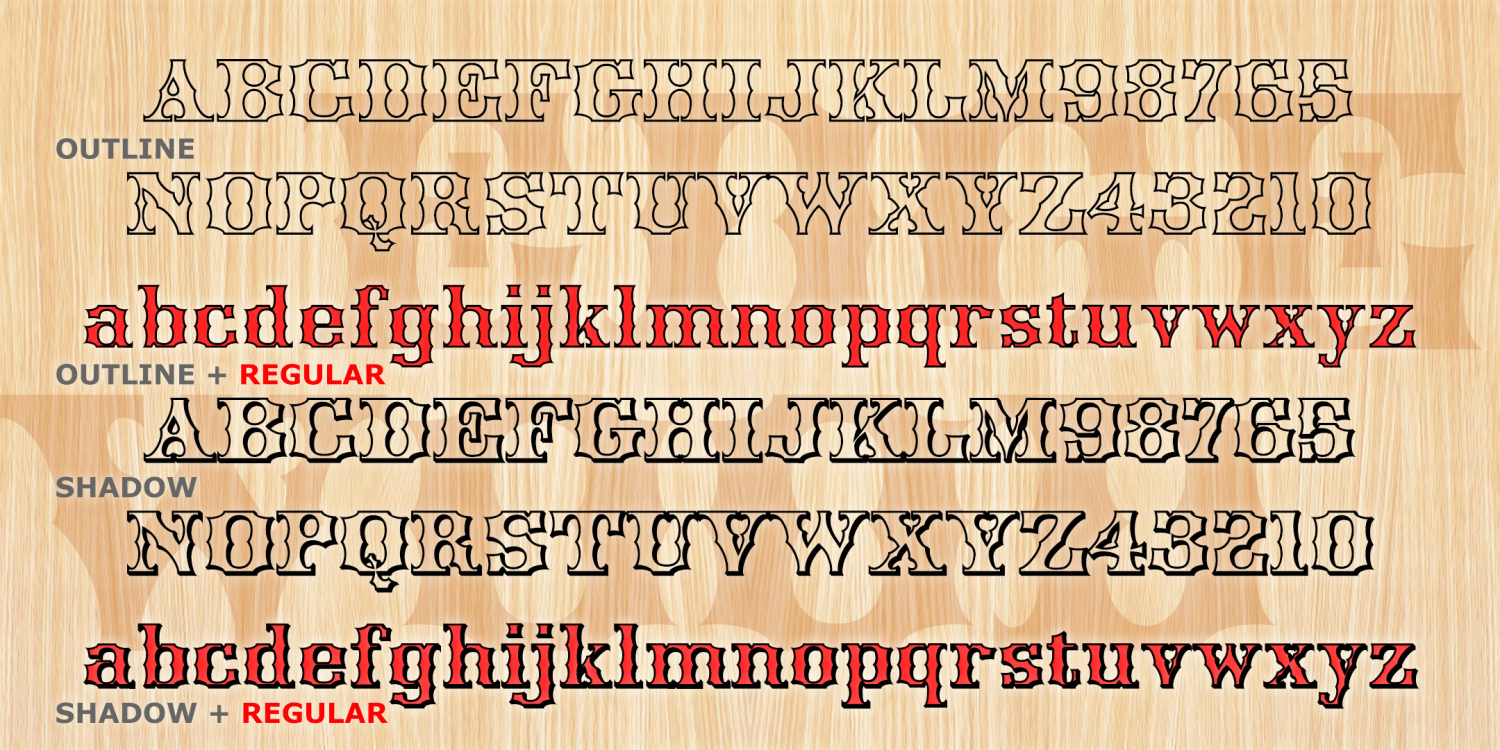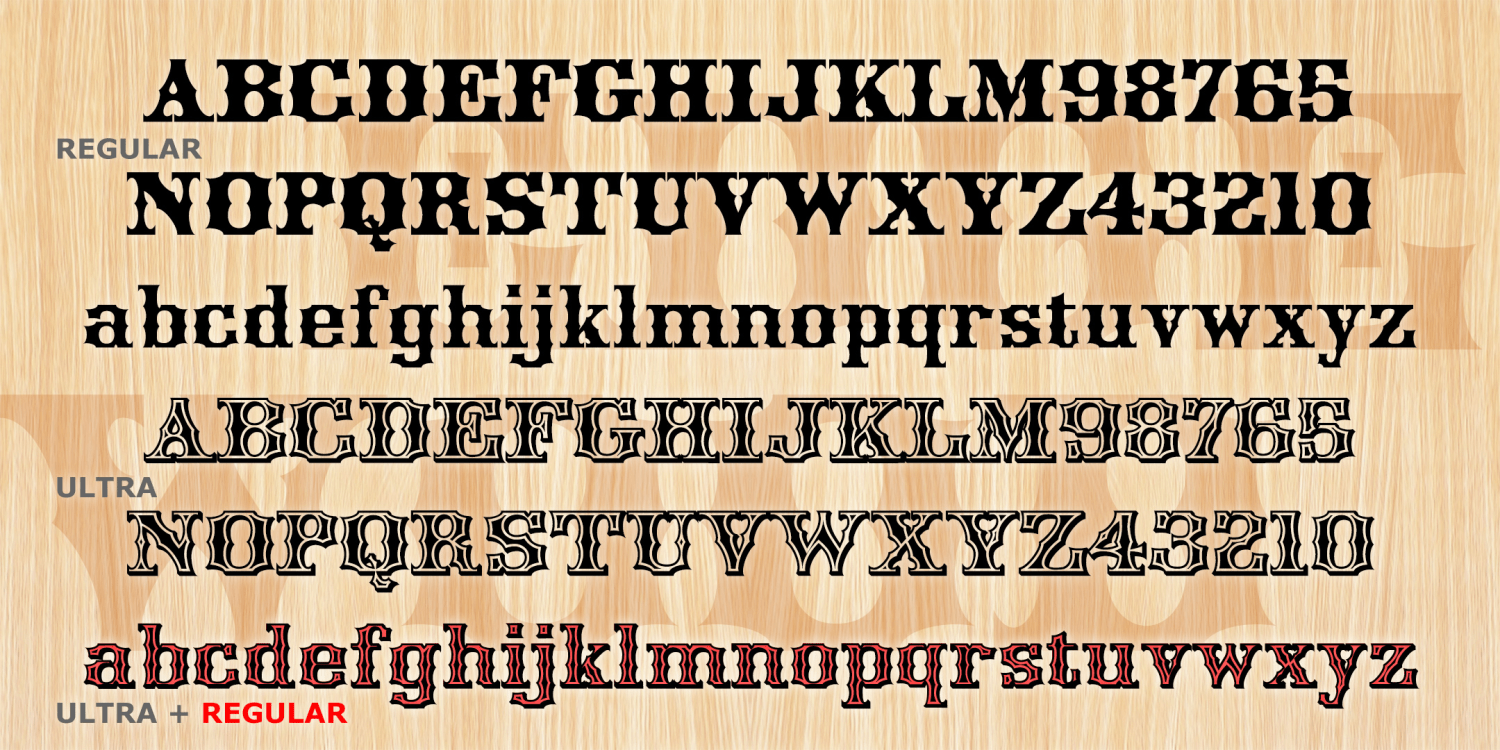
Edgewood
About Edgewood
EDGEWOOD is a set of bold and fancy woodtype style fonts. It has unique concave styling and more spurs than a rodeo. EDGEWOOD was inspired by 19th-century examples with some characters revised for modern reading. The set of 4 fonts includes Regular, Outline,…